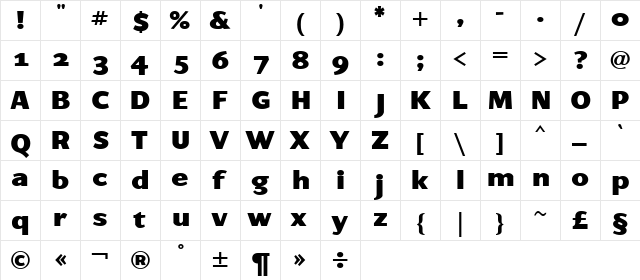
ArtemiusSans SN Black Regular
| Foundry | Letterhead studio especially for ArtLebedev Group. Created by Yuri Gordon |
Design Context for ArtemiusSans SN Black Typeface
ArtemiusSans SN Black takes a measured approach to typography — its balanced proportions and neutral character make it a reliable workhorse for both digital and print work.